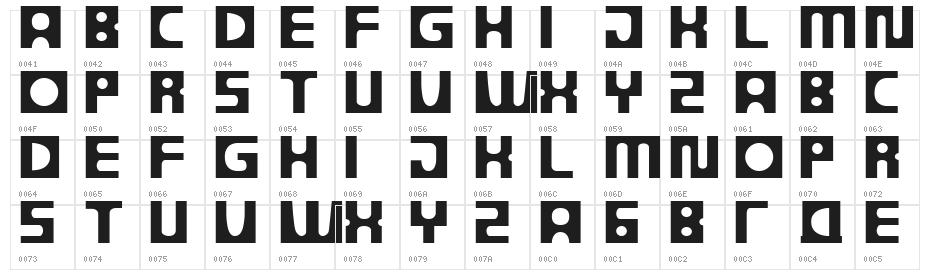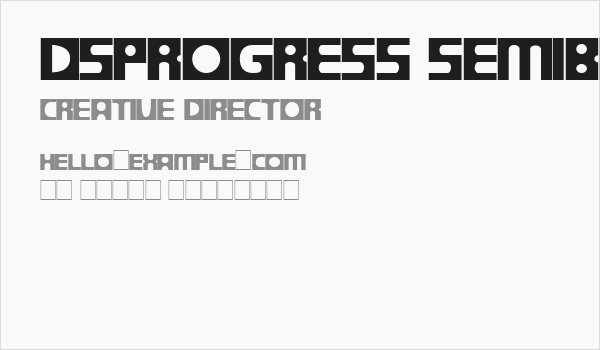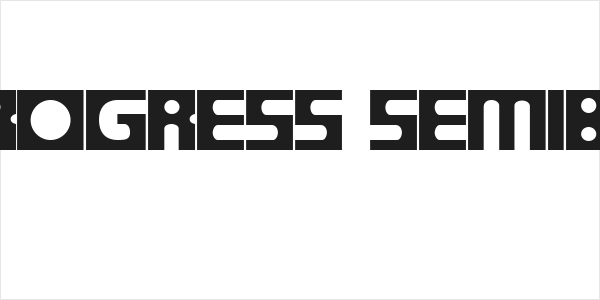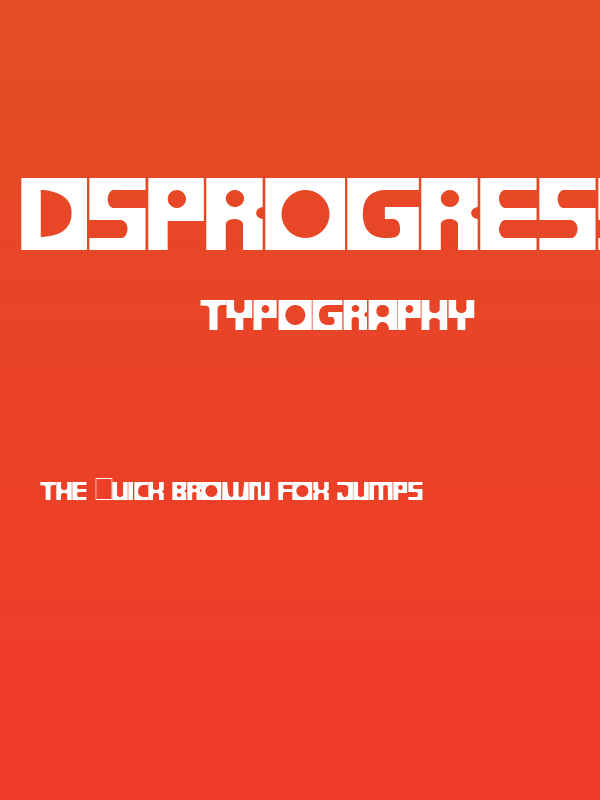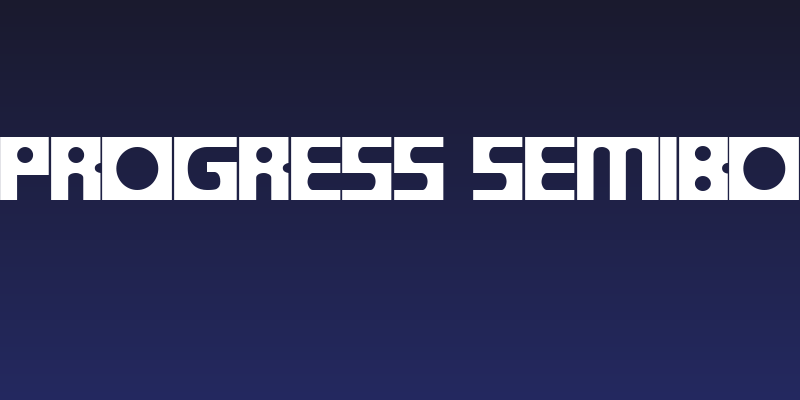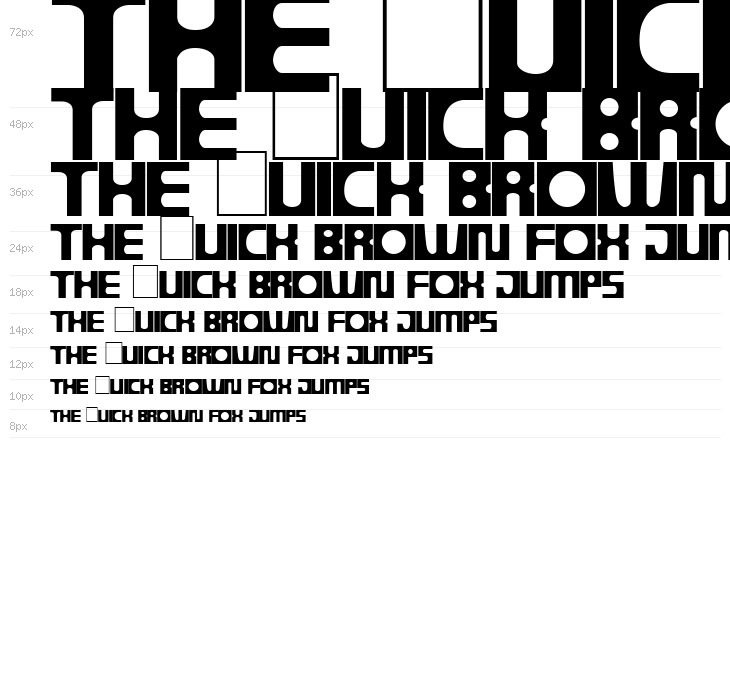
DSProgress SemiBold Font
DSProgress SemiBold Description
This font features a bold, geometric design with a strong emphasis on square and rectangular shapes. The characters are constructed with thick, uniform strokes, creating a solid and impactful appearance. The overall style is modern and futuristic, with a distinct digital or technological feel. The uppercase letters are particularly striking, with their blocky forms and minimal curves. The font is highly legible at larger sizes, making it suitable for attention-grabbing headlines and display purposes. The absence of lowercase letters and special characters suggests a focus on simplicity and boldness.
Proposed ProjectsIdeal for technology branding, futuristic posters, and digital media projects.